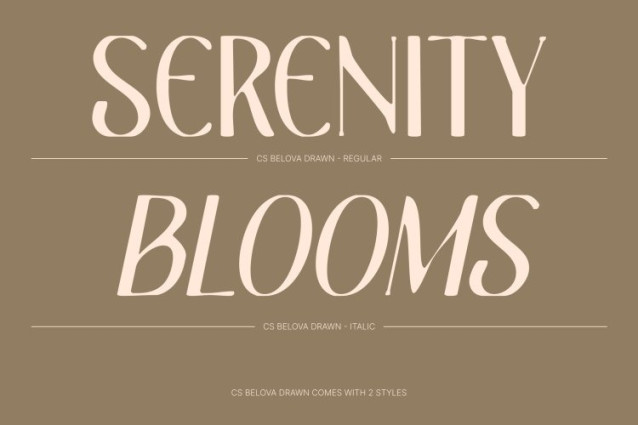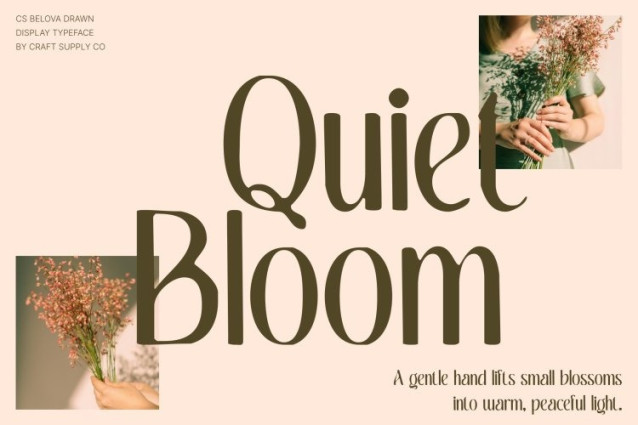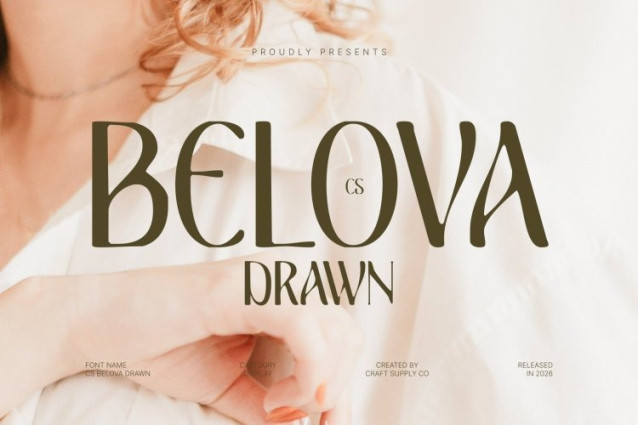
CS Belova Drawn Font This is an serif font crafted with clean, slender lines and enhanced by a subtle hand-drawn texture. Its balanced structure delivers sophistication and clarity, while the drawn details introduce warmth and gentle character. The result is a serif that feels polished yet approachable refined without feeling rigid.
Modern Aesthetic with Playful Personality
What sets this font apart is its playful nuance within a modern serif framework. Graceful proportions and soft curves are complemented by delicate drawn variations, adding movement and liveliness to the letterforms. This combination softens traditional formality, allowing the font to express beauty, creativity, and contemporary charm.
Refined Simplicity with Artistic Warmth
Embracing simplicity as a strength, the font’s slender strokes and airy spacing create an fashionable appearance. The hand-drawn finish adds subtle texture and individuality, giving the typeface a human touch while preserving readability. It feels stylish, expressive, and thoughtfully crafted.
Perfect for Fashion and Editorial Design
This font is ideal for fashion branding, editorial layouts, posters, packaging, and refined typographic compositions. It shines in headlines and titles, bringing a modern, sophisticated presence with a hint of playful elegance. Perfect for designs that aim to feel beautiful, stylish, and visually captivating.